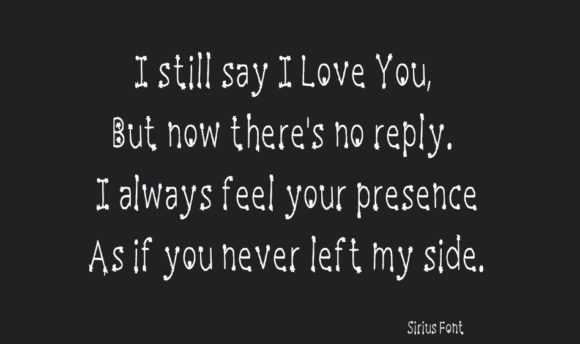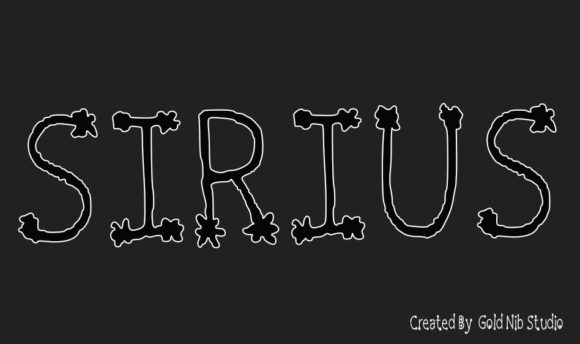
Sirius Font
db-ku.com - Script & Handwritten -- Sirius is sweet handwritten font. It has beautiful and well-balanced characters and as a result, it matches a variety of cute design ideas. It is suitable for logotype, headline font, in corporate identity, brand identity, apparel industry, poster, music, movie, game, magazine, book, comic, cartoon, YouTube, Instagram, website, or any of your creative design projects.